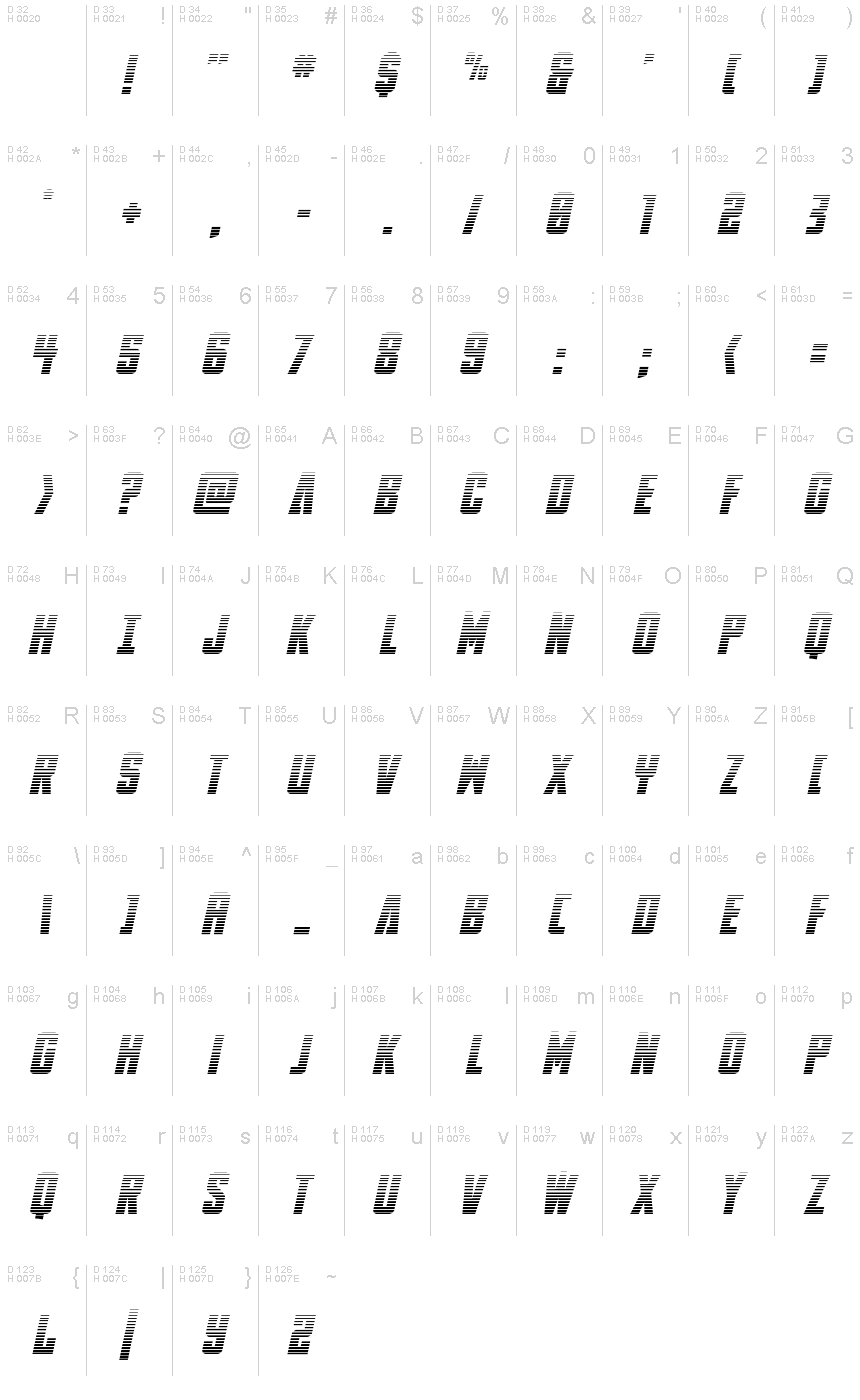
DiaClone Gradient Italic
DiaClone Gradient Italic, a creation by Iconian Fonts, stands out with its futuristic techno vibe and condensed letterforms that give it a sleek, modern look. This display font commands attention through its dynamic gradient that adds depth and movement, suggesting speed and progression. The italic angle injects energy and forward momentum into every character.
The font's distinctive style makes it ideal for high-impact visuals in the realms of gaming, tech branding, or any project demanding a cutting-edge aesthetic. Its condensed nature allows for impactful headlines on posters or in editorial designs where space is at a premium but legibility is still paramount. DiaClone Gradient Italic's bold personality is sure to leave an indelible mark wherever it's used.